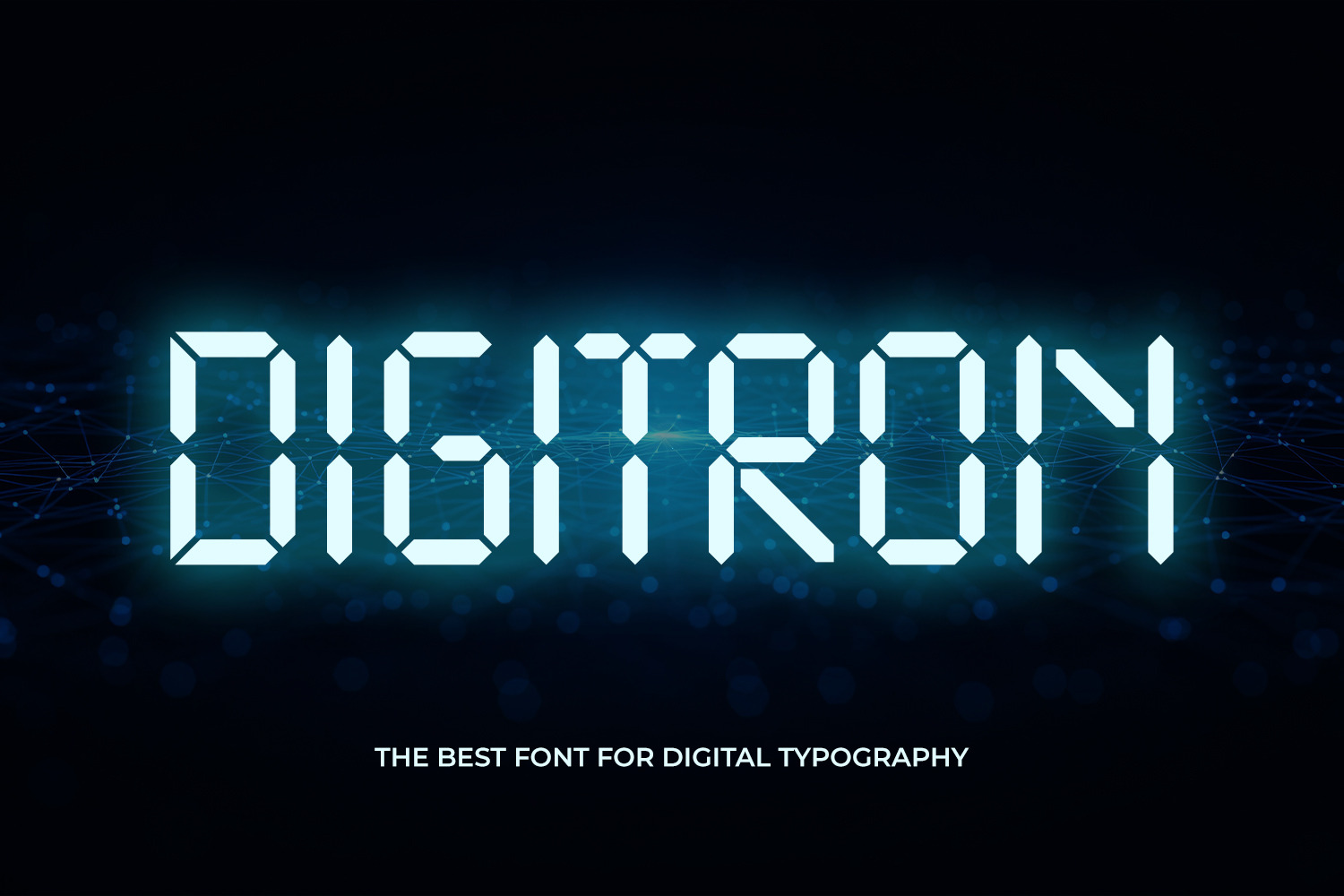
Digitron Font
Digitron is a modern digital display typeface meticulously crafted to embody the futuristic aesthetic of segmented screens, electronic dashboards, and high-tech user interfaces. Featuring a clean geometric structure and a bold modular design, this font captures the precision of digital clocks and sci-fi systems, making it an ideal choice for projects that require a contemporary, technological identity. Whether you are developing a cyberpunk logo, a tech startup brand, a gaming interface, or a movie title, Digitron delivers a visually striking and confident voice that ensures your typography is both highly readable and instantly recognizable across all digital and print media.